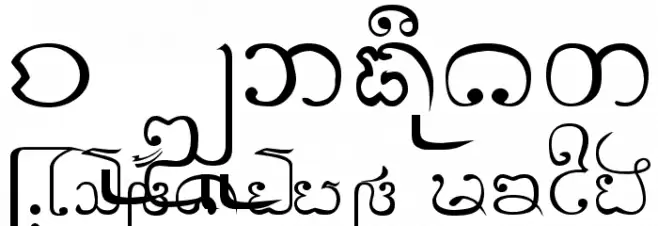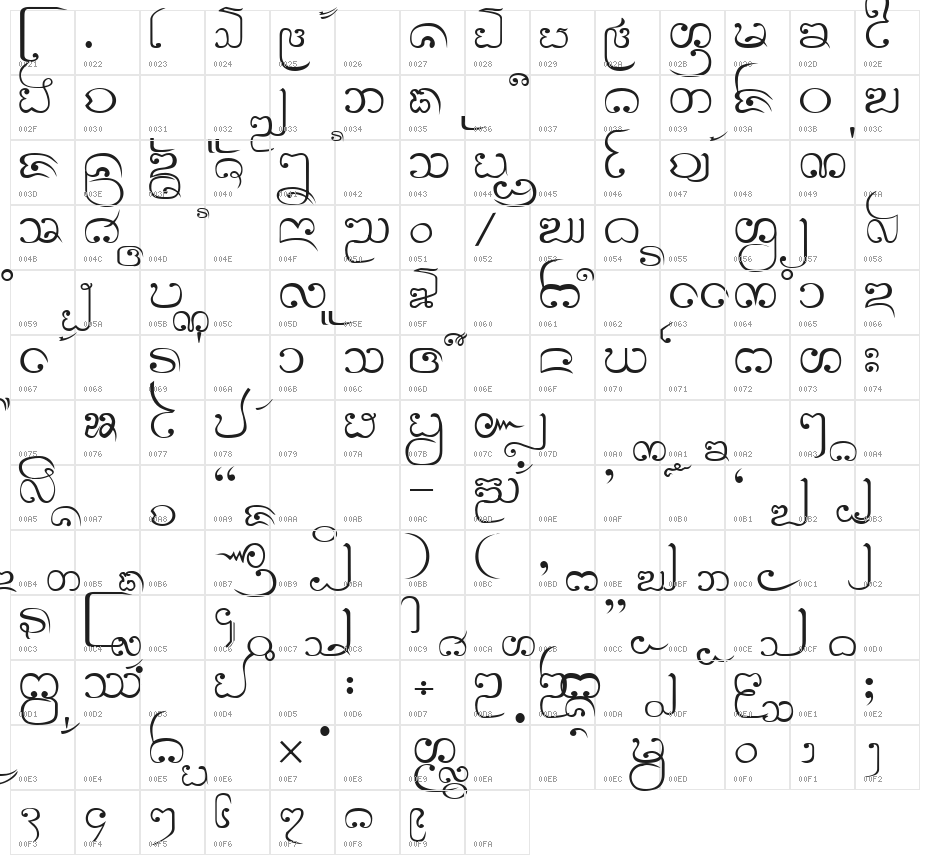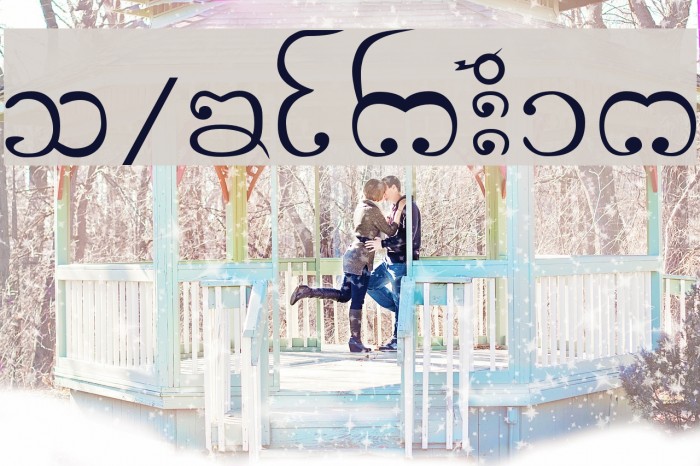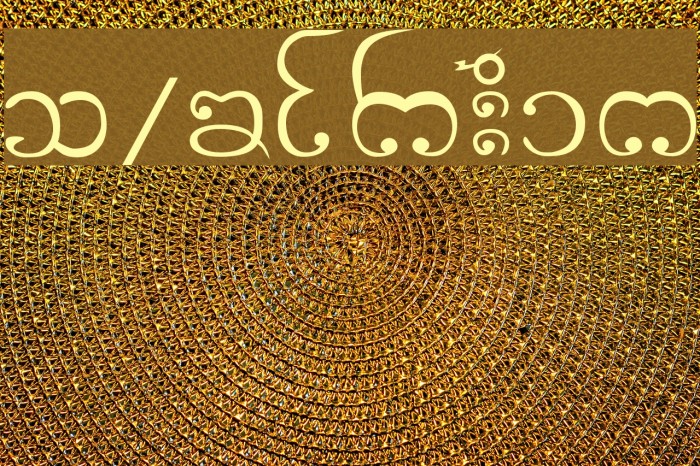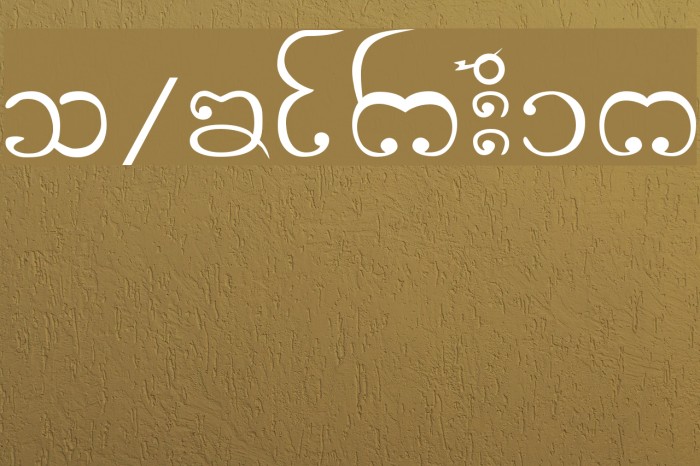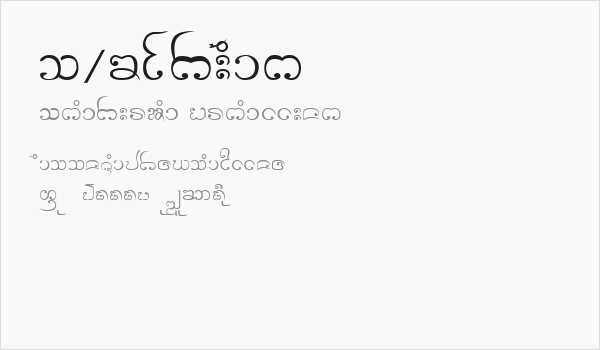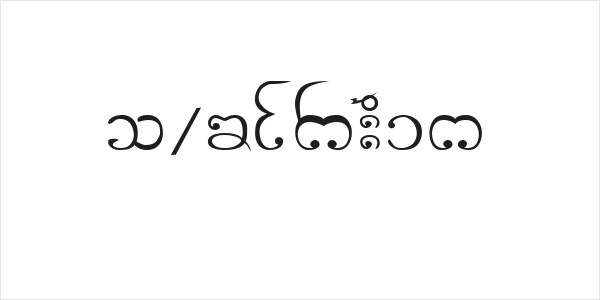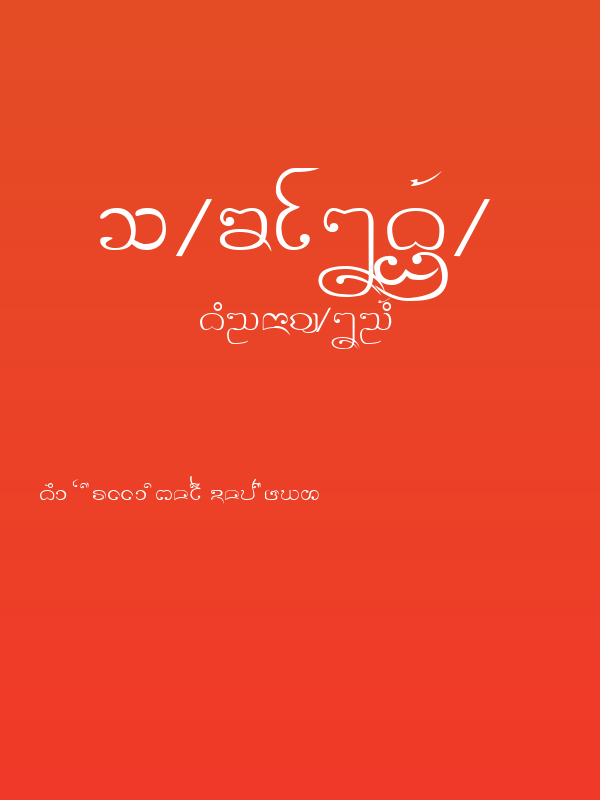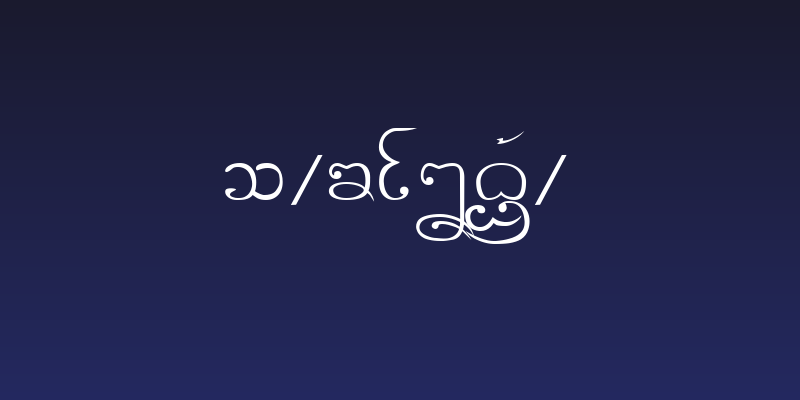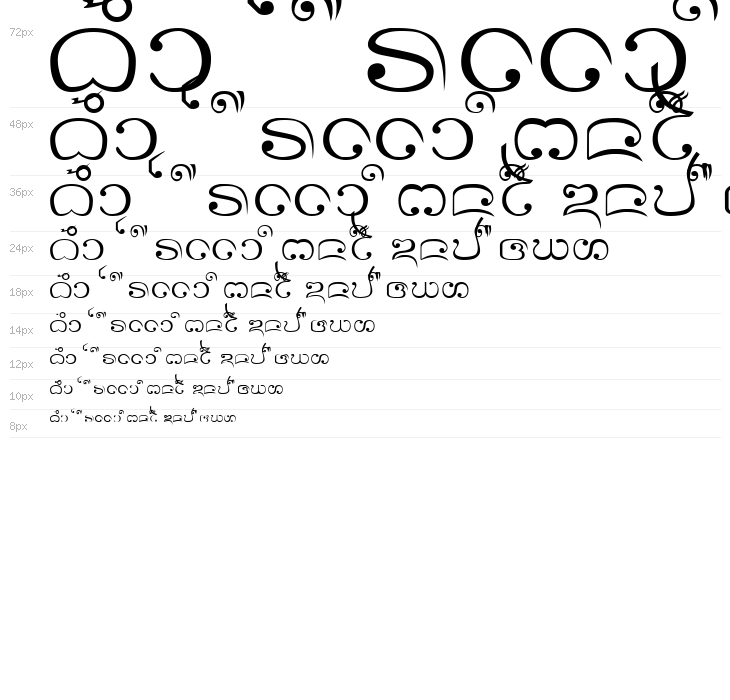
CR-Father Font
CR-Father Description
This font features a highly decorative and intricate design, characterized by its flowing curves and elaborate swirls. The characters exhibit a unique blend of traditional and artistic elements, making them visually striking. The font's ornate style is reminiscent of calligraphic scripts, with each letter crafted to include detailed embellishments. The overall appearance is both elegant and sophisticated, suitable for projects that require a touch of class and creativity. The font's complex design may limit its readability at smaller sizes, but it excels in making a bold statement when used for larger text or decorative purposes.
An ornate and decorative font with intricate curves and swirls from Uncategorized fonts.
- Proposed Projects: Ideal for invitations, greeting cards, decorative headings, and artistic projects.
- Use Case: Headlines, Logos, Decorative text